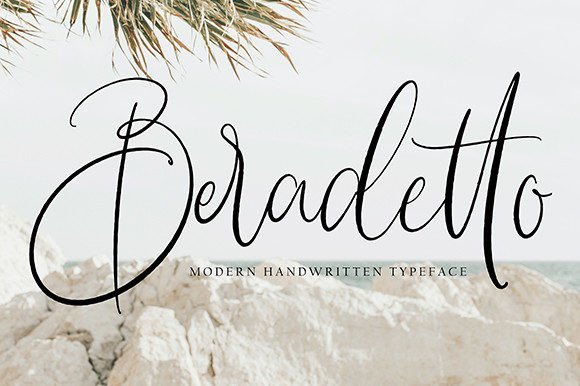
Have you ever stared at a blank page, trying to find the perfect words to express your idea, but nothing seems to stick? We’ve all been there – the blank page staring back at us, taunting us with its emptiness. But what if you had the perfect tool to give your creative project that extra oomph? Enter the Beradetto Font, a stunning modern handwritten font designed to elevate your designs and make them truly special.
This versatile font is perfect for quotes, logos, blog headers, posters, branding, letters, invitations, and stationery – the list goes on. Its cool and stylish vibe makes it a valuable asset for any designer’s font library. With Beradetto Font, you’ll be able to add a personal touch to your projects and make them truly stand out from the crowd.
Beradetto Font Key Features
- Unique Characteristics: Elegant, cursive script with a touch of classic sophistication, ideal for wedding invitations, greeting cards, and other special occasions
- Font Style: Script, cursive, handwritten
Review of Beradetto Font
I recently had the chance to work with the Beradetto font, and overall, it’s a solid choice for various design projects. ✨ One of the things that stands out is its unique blend of modern and classic elements, which gives it a timeless feel. The font’s curves and lines are well-balanced, making it easy on the eyes.
The font has a wide range of weights and styles, which allows for flexibility in various design scenarios. ✨ I particularly liked using it for headings and titles, as it adds a touch of sophistication to the layout.
However, there are a few areas where the Beradetto font falls short. ⚠️ One of the main limitations is its readability at smaller font sizes. While it looks great at larger sizes, it can become a bit fuzzy when scaled down.
- Limited font pairing options: Beradetto’s unique style can make it challenging to pair with other fonts, which may limit its versatility.
- Not ideal for small text: As mentioned earlier, the font can become difficult to read at smaller sizes.
In conclusion, the Beradetto font is a great addition to any designer’s toolkit. While it may have its limitations, its unique style and flexibility make it a solid choice for various design projects. With a little creative experimentation, you can achieve some amazing results with this font.
Beradetto Font: A Practical Application Guide
Tips for Getting the Most Out of Beradetto Font
Use the Beradetto Font in combination with a serif font for a classic look. Experiment with different font sizes and styles to create visual hierarchy and emphasis.
The Beradetto Font is ideal for:
- Book covers and literary publications
- Magazine and newspaper headlines
Alternatives to Beradetto Font for Designers
Great Vibes Font is a beautiful, elegant script font that is perfect for adding a touch of sophistication to your designs. It features a flowing, handwritten style that is ideal for use in titles, headings, and quotes. When to use: Great Vibes Font is best used for designs that require a high-end, luxurious feel.
Comparison to Beradetto Font: While Beradetto Font is also a script font, Great Vibes Font has a more refined and elegant look. It is better suited for formal designs, whereas Beradetto Font is more versatile and can be used in a variety of contexts.
Dancing Script Font is a fun, playful script font that is perfect for adding a touch of whimsy to your designs. It features a lively, energetic style that is ideal for use in titles, headings, and logos. When to use: Dancing Script Font is best used for designs that require a fun, youthful feel.
Comparison to Beradetto Font: While Beradetto Font is also a script font, Dancing Script Font has a more carefree and playful look. It is better suited for casual designs, whereas Beradetto Font is more versatile and can be used in a variety of contexts.
Carolyna Pro Font is a modern, elegant script font that is perfect for adding a touch of sophistication to your designs. It features a flowing, handwritten style that is ideal for use in titles, headings, and quotes. When to use: Carolyna Pro Font is best used for designs that require a high-end, luxurious feel.